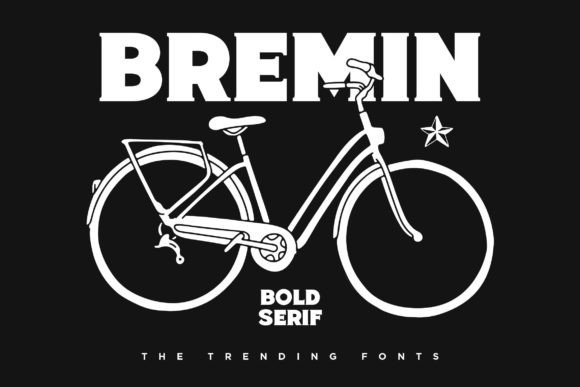
Make Your Presence Stronger with Bremin Font: A Vintage Bold Serif Typeface
In the world of typography, fonts play a crucial role in conveying messages, expressing emotions, and creating brand identities. For designers and crafters looking to make a bold statement, Bremin font is an excellent choice. This vintage bold serif typeface with an all-caps style is perfect for creating a strong presence in various design projects, from men’s apparel and clothing lines to logos, branding, streetwear, garage, motorcycle events, vintage posters, and more.
The Power of Bold Typography
Bold typography is a powerful tool in design, capable of grabbing attention, conveying confidence, and creating a lasting impression. Bremin font, with its bold and serif design, is specifically crafted to make a statement. Its all-caps style ensures that your message is loud and clear, making it ideal for designers who want to create a strong visual impact.
What Makes Bremin Font Stand Out?
Bremin font stands out from other typefaces due to its unique combination of vintage charm and modern boldness. Its serif design adds a touch of sophistication and elegance, while its bold style ensures that your text is easily readable and attention-grabbing. Whether you’re designing a logo, creating a vintage poster, or developing a brand identity, Bremin font provides the perfect balance of style and substance.
Perfect for Men’s Apparel and Clothing Lines
Men’s apparel and clothing lines require typography that exudes confidence, strength, and style. Bremin font is perfectly suited for these applications, as its bold and serif design complements a wide range of fashion styles. From streetwear to high-end fashion, Bremin font helps create a strong brand identity that resonates with the target audience.
Ideal for Logos and Branding
Logos and branding are critical components of any business, as they help create a lasting impression and establish brand recognition. Bremin font, with its bold and distinctive design, is an excellent choice for logos and branding. Its all-caps style ensures that your brand name is easily readable and memorable, making it perfect for businesses looking to create a strong brand identity.
Garage, Motorcycle Events, and Vintage Posters
Bremin font is also ideal for designing materials related to garage, motorcycle events, and vintage posters. Its vintage charm and bold style evoke a sense of nostalgia and excitement, making it perfect for creating eye-catching posters, flyers, and brochures. Whether you’re promoting a motorcycle event or creating a vintage-style poster, Bremin font helps you create a design that’s both stylish and attention-grabbing.
Tips for Using Bremin Font Effectively
To get the most out of Bremin font, here are some tips for using it effectively:
- Use it for headlines and titles to create a bold statement.
- Pair it with other fonts to create a contrasting and visually appealing design.
- Experiment with different colors and textures to add depth and interest.
- Use it consistently across different design materials to create a strong brand identity.
| Font Name | Bremin Font |
| Author | konstantinestudio |
Bremin font is a powerful tool for designers and crafters looking to create a strong presence in their design projects. Its vintage bold serif typeface with an all-caps style makes it perfect for a wide range of applications, from men’s apparel and clothing lines to logos, branding, streetwear, garage, motorcycle events, vintage posters, and more. With its unique combination of style and substance, Bremin font is an excellent choice for anyone looking to make a bold statement.